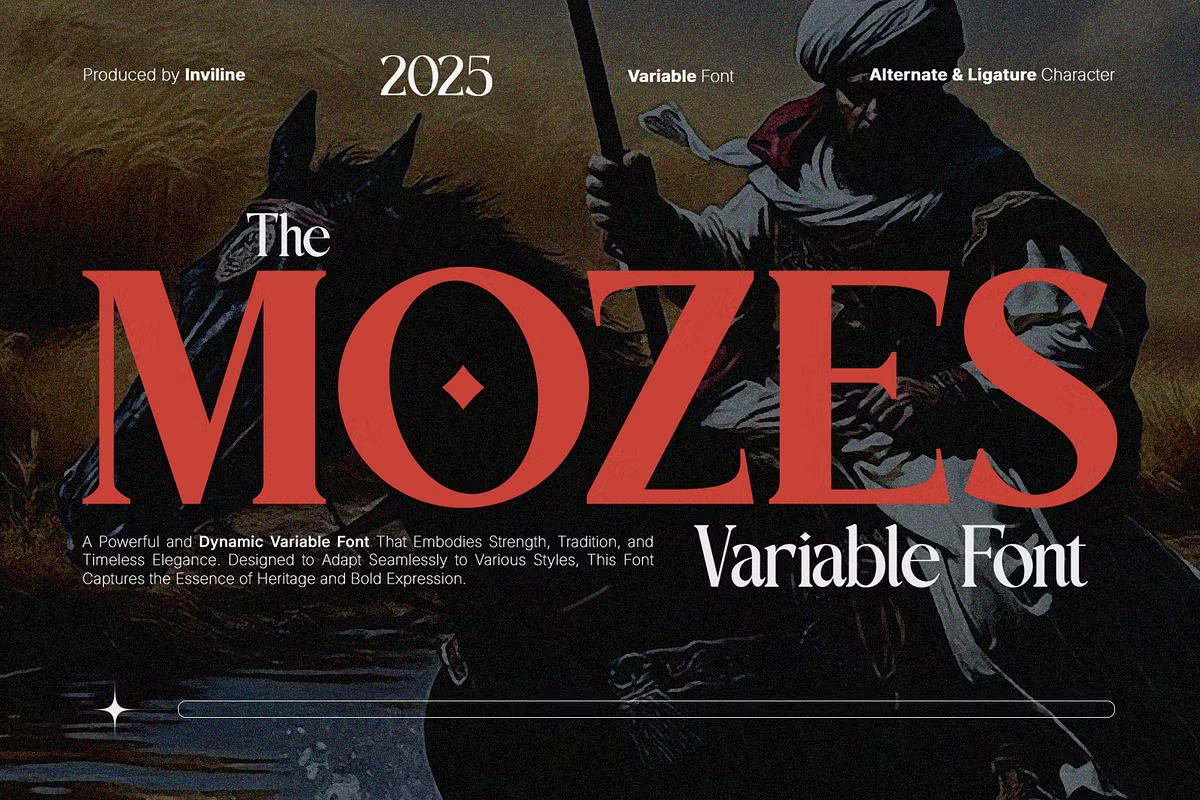
Mozes is a dynamic and expressive variable serif typeface designed for modern architecture and design. With its bold yet elegant structure, Mozes reflects both beauty and strength, making it a perfect choice for contemporary styles. Inspired by the architectural trends of 2025, this typeface seamlessly blends history and innovation, resulting in a timeless yet forward-thinking aesthetic. Its versatility allows it to adapt to various design projects while maintaining a distinct and confident presence.
Beyond its striking appearance, Mozes offers functional adaptability. It features a range of ligatures and alternate characters, ensuring flexibility in typographic compositions. Designers can easily adjust the font’s weight and width, allowing for precise customization without the need to switch between multiple font files. This convenience not only enhances efficiency but also ensures a seamless creative process.
Mozes is more than just a typeface—it is a statement. Its refined yet bold character makes it an excellent choice for branding, editorial design, advertising, and architectural presentations. Whether used in headlines or body text, Mozes stands out with clarity and confidence, making any project visually compelling.